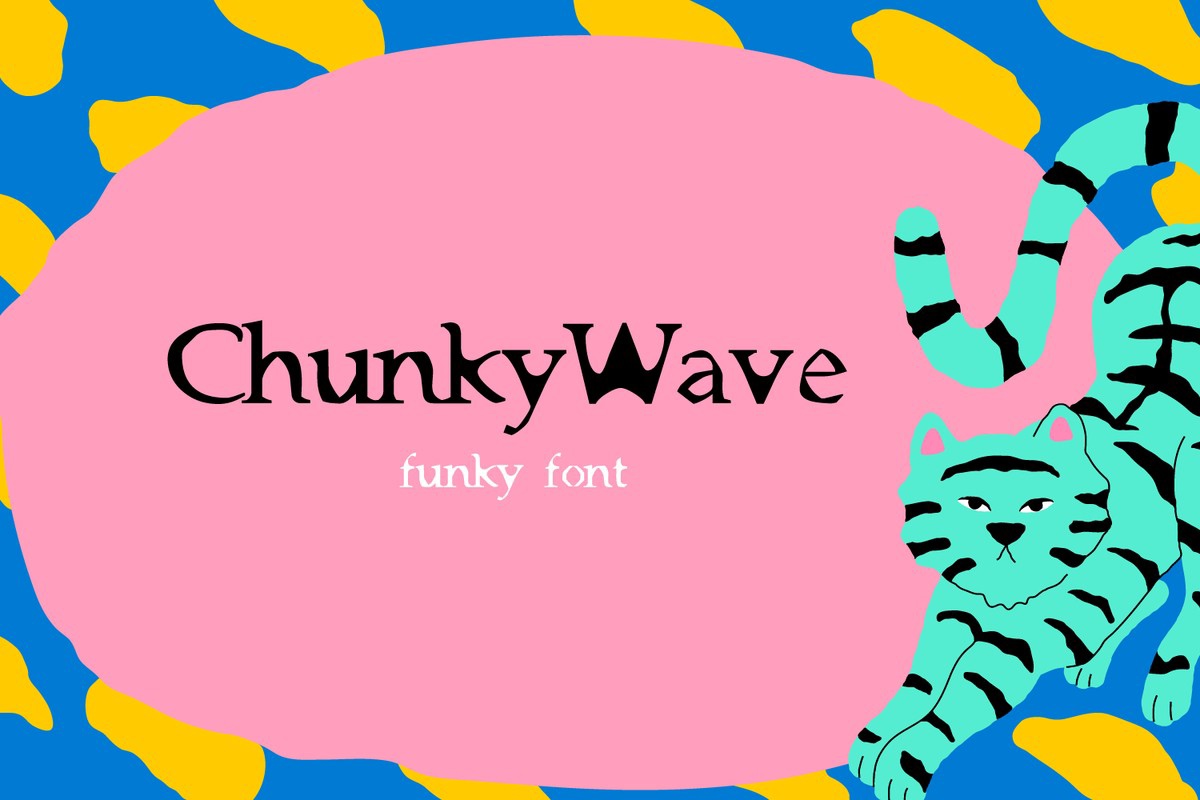
Chunky Wave Font
Chunky Wave Font is ideal for retro surf shop branding, vintage beach club signage, 70s-inspired fashion labels, groovy music festival promotions, funky food truck designs, psychedelic art exhibitions, nostalgic skateboard graphics, retro bowling alley decorations, vintage disco venue materials, and throwback lifestyle brand identities. This groovy typeface brings chunky retro vibes and wave-like rhythm to any vintage-inspired design project.
Chunky Wave Font is exciting because it captures the laid-back coolness and groovy energy of vintage surf culture, featuring thick, undulating letterforms that seem to ride the waves with the same rhythmic flow and chunky boldness that defined the golden age of surf and skate aesthetics. Its wavy character instantly conveys retro coolness, relaxed vibes, and the carefree spirit that makes vintage beach culture so timelessly appealing.
Chunky Wave Font family includes Regular and Bold weights with wavy alternates, surf-inspired flourishes, groovy ornamental elements, and retro symbols that enhance the vintage beach aesthetic, providing retro designers with chunky tools for creating typography that celebrates the laid-back coolness and wave-riding spirit of classic surf and beach culture.
Retro surf designers appreciate Chunky Wave Font for its exceptional ability to convey vintage coolness and beach culture authenticity through chunky, wave-like letterforms. The font's groovy character and surf details create immediate associations with vintage surfboards, beach parties, and the laid-back lifestyle that defined surf culture during its most iconic and influential periods in beach community history.
The design philosophy behind Chunky Wave Font celebrates the timeless appeal of vintage surf culture and the laid-back lifestyle that values wave-riding, beach vibes, and the simple pleasure of living in harmony with ocean rhythms, making it particularly effective for surf brands, beach lifestyle companies, and retro entertainment venues that honor classic beach culture. Surf teams working on vintage projects find this font essential.
Whether used for vintage surf shops, retro beach festivals, or throwback lifestyle campaigns, Chunky Wave Font delivers the perfect combination of chunky boldness and wave-like groove. Its retro appeal and surf authenticity make it an indispensable choice for brands that celebrate vintage beach culture, promote laid-back lifestyles, and honor the timeless coolness of classic surf and skate aesthetics that continue to influence contemporary beach culture.